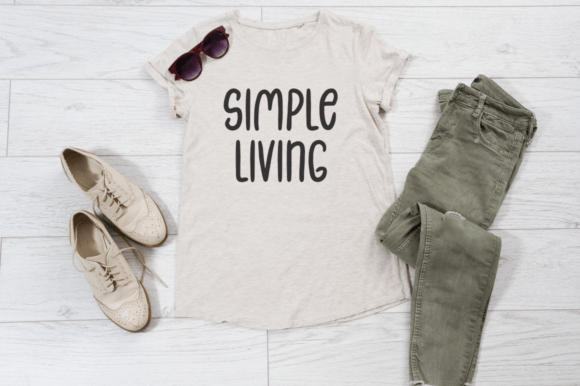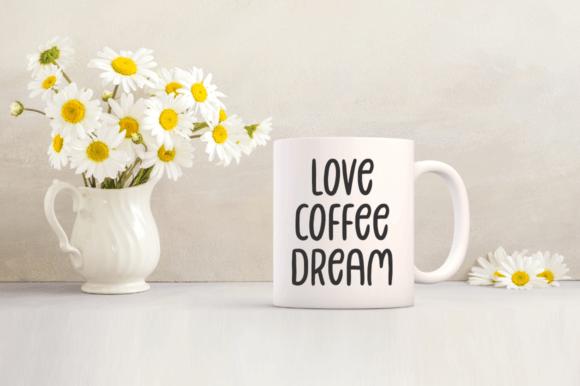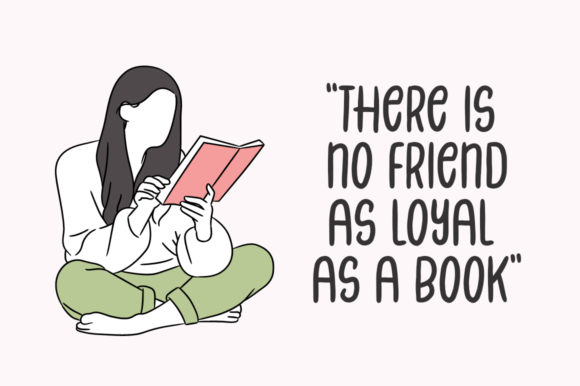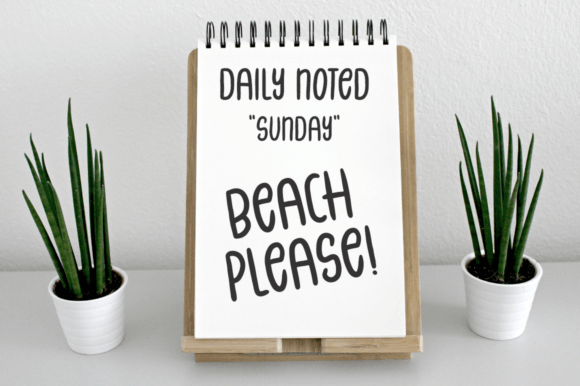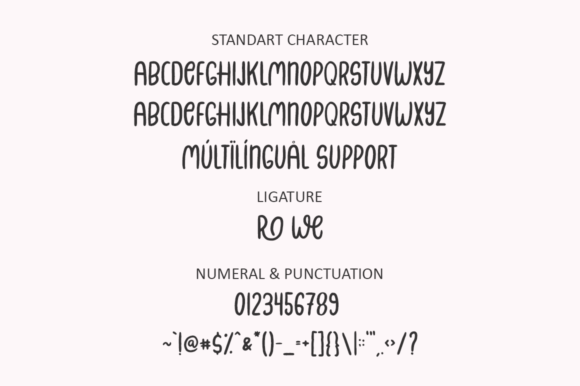
Welldone July Font
Welldone is a delightful and whimsical handwritten font that radiates a sense of fun and creativity. Meticulously crafted with a keen eye for detail, this font stands out as a fantastic addition to your font library, offering versatility and the potential to elevate a wide range of creative projects.
The playful and whimsical nature of Welldone makes it an excellent asset, irrespective of the topic or theme. Its handwritten charm adds a personalized touch to your designs, making them more engaging and distinctive.
With its neat craftsmanship and attention to detail, Welldone proves to be suitable for various applications. Whether you’re working on posters, banners, social media graphics, or branding projects, this font has the capacity to inject a joyful and whimsical quality into your creations.
Embrace the fun and playful vibes of Welldone as you explore its potential in your design projects. Watch as it contributes a delightful and unique touch to your creations, making them more vibrant and captivating. Make Welldone your go-to choice whenever you want to infuse a sense of whimsy and creativity into your designs.